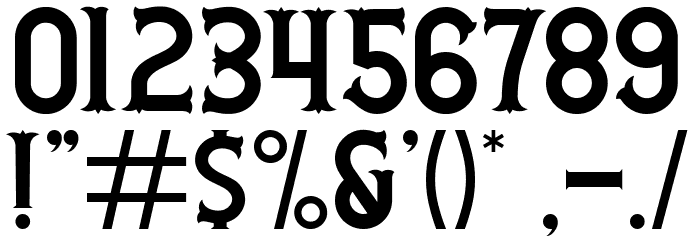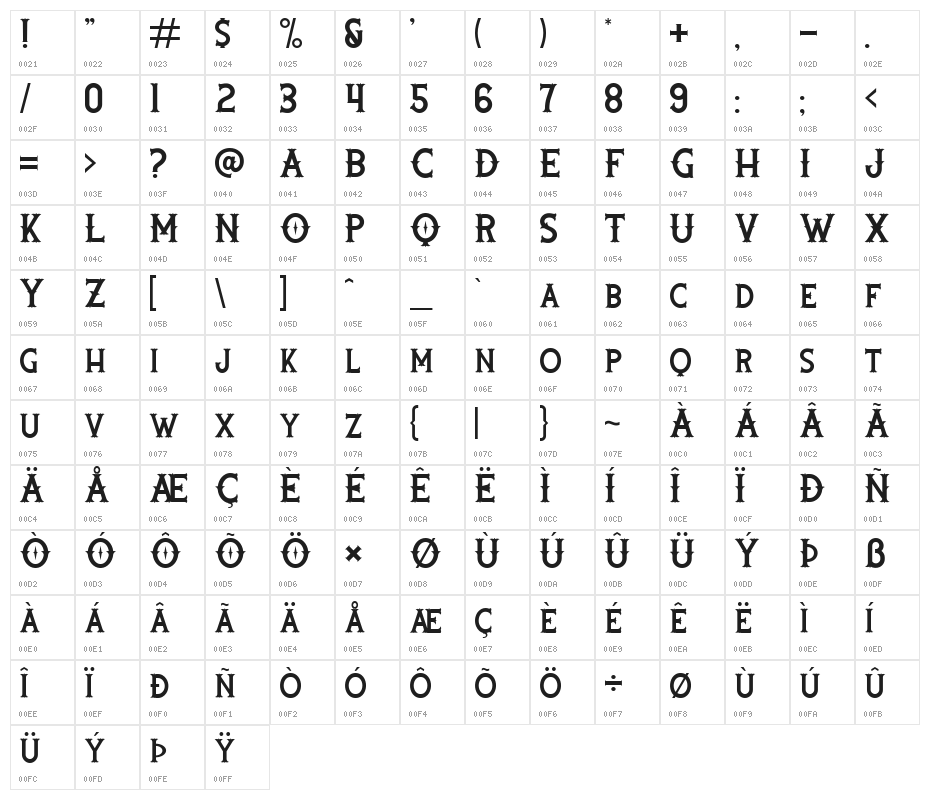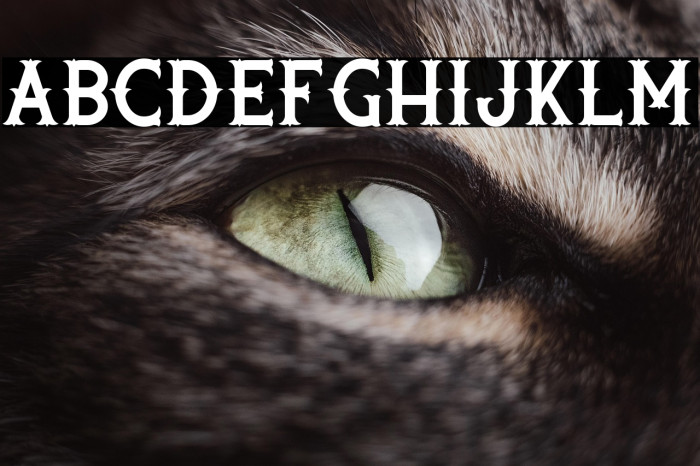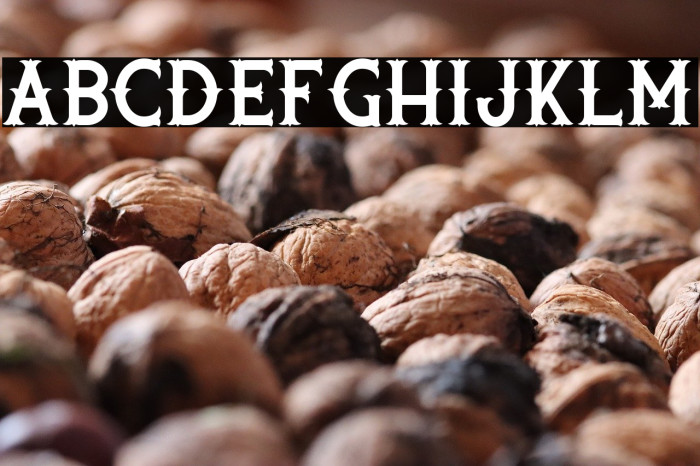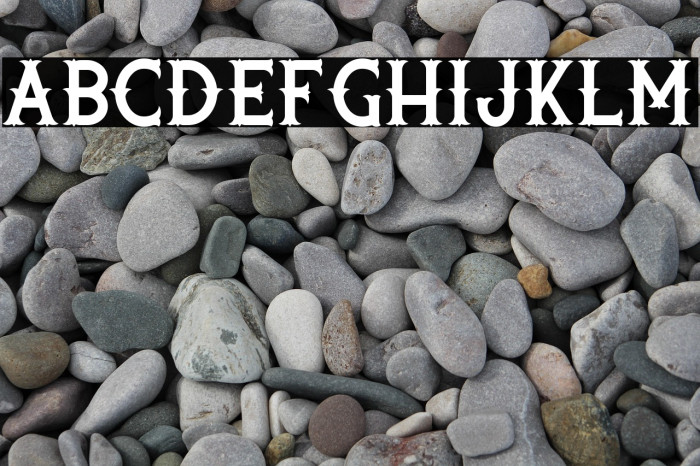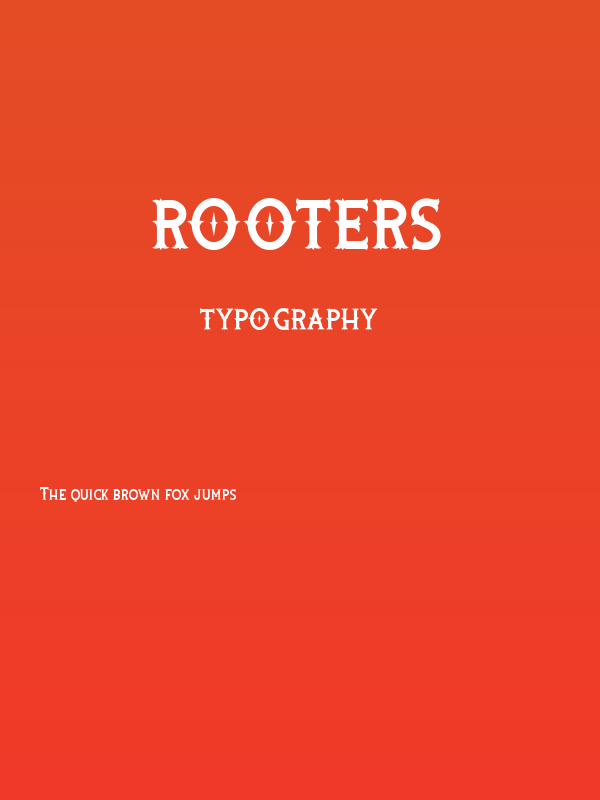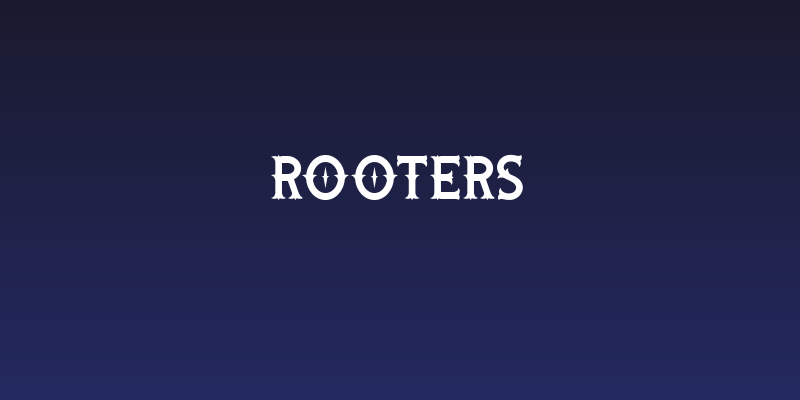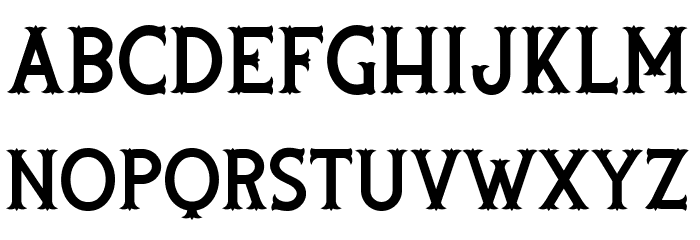
Rooters Font
Rooters Description
This font features a bold and distinctive style with sharp, pointed serifs that give it a unique and edgy appearance. The uppercase letters are particularly striking, with a strong presence that commands attention. The numerals are equally bold, maintaining the same sharp serif design. The special characters are consistent with the overall style, ensuring a cohesive look across all glyphs. This font's design is reminiscent of vintage or gothic styles, making it suitable for projects that require a dramatic and impactful typeface.
| Overall Style | Vintage, Gothic |
| Proposed Projects | Ideal for posters, album covers, branding, and any design needing a bold, dramatic typeface. |